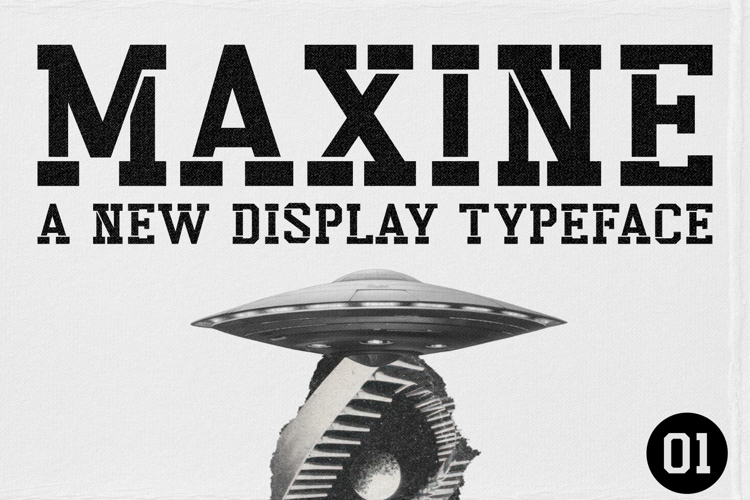
Maxine
Introducing Maxine - Display Font. Maxine is a futuristic display font, This type of font is very suitable for your various needs such as branding projects, logos, social media posts, advertisements, labels, product packaging, photography, wedding designs, watermarks, invitation product designs, stationery, and any project.